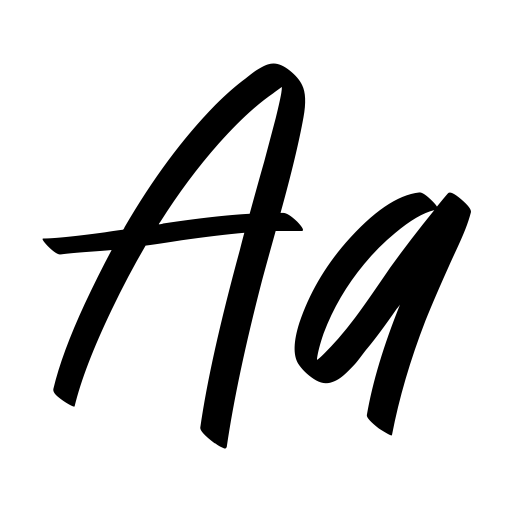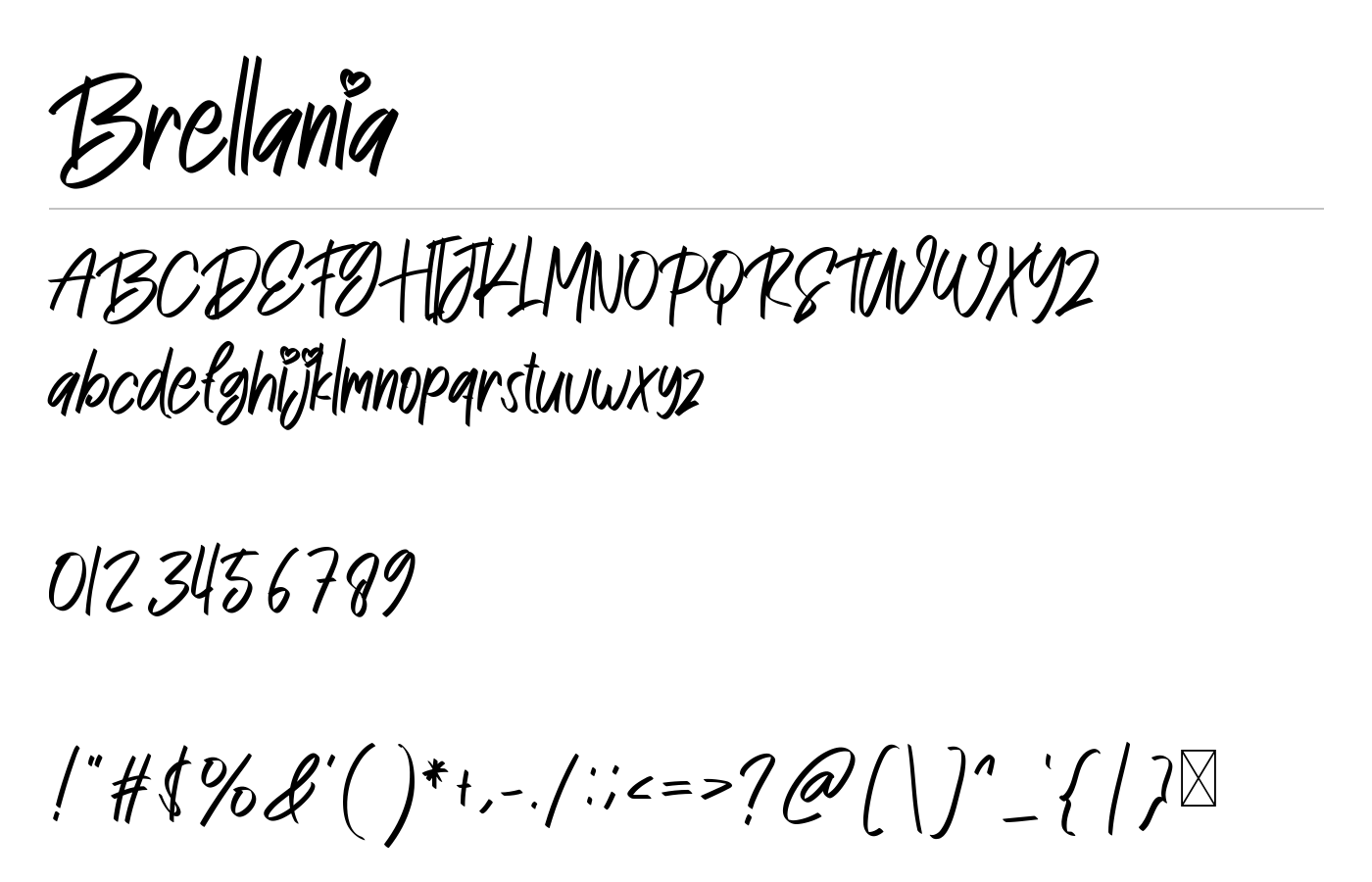
Brellania is a lively, handwritten script font with a playful and casual charm, characterized by its smooth, flowing strokes and slight slant. Its elegant yet informal style, complete with whimsical heart accents on some letters, makes it perfect for creative, personal, or youthful branding, invitations, and social media graphics. This font's light weight and airy spacing give it a friendly, approachable feel that works well for headlines and decorative text where personality and warmth are desired.
Brellania Font
About Brellania Font